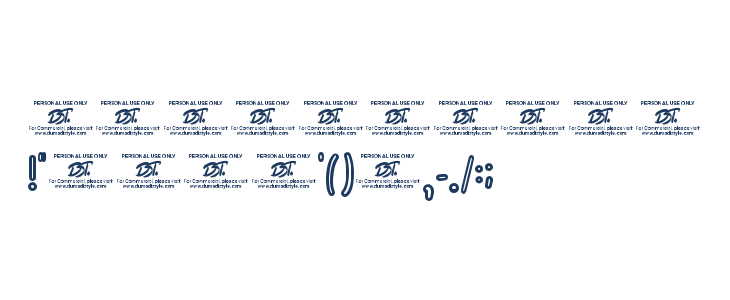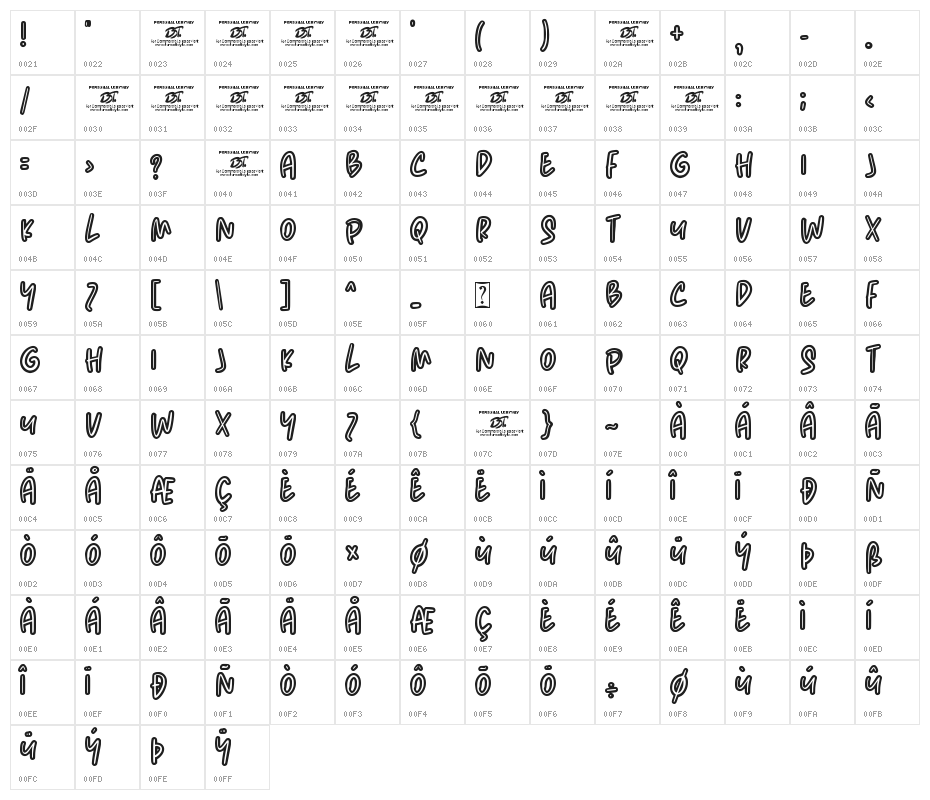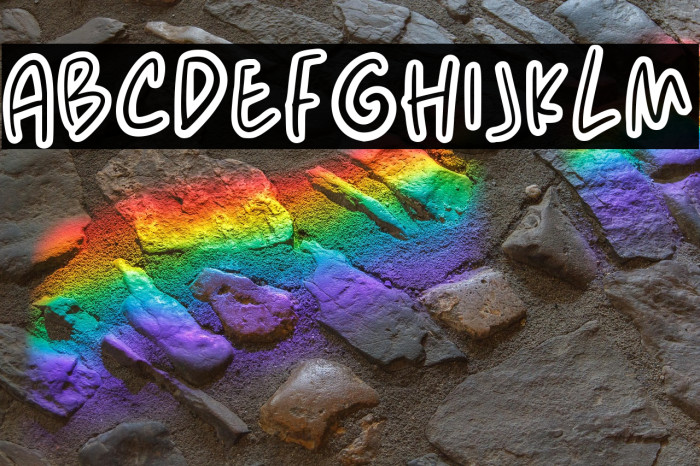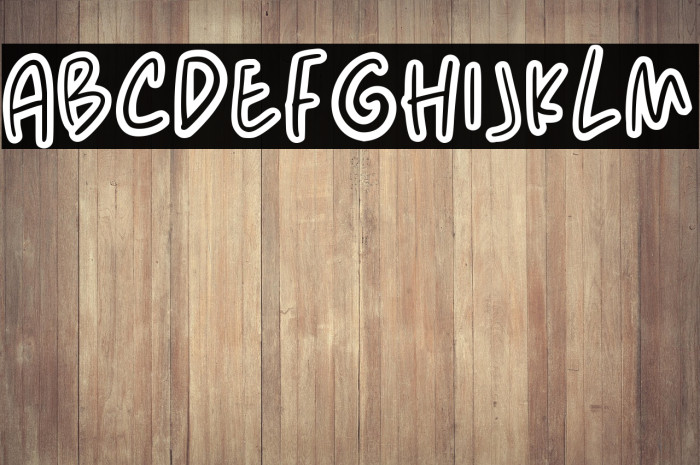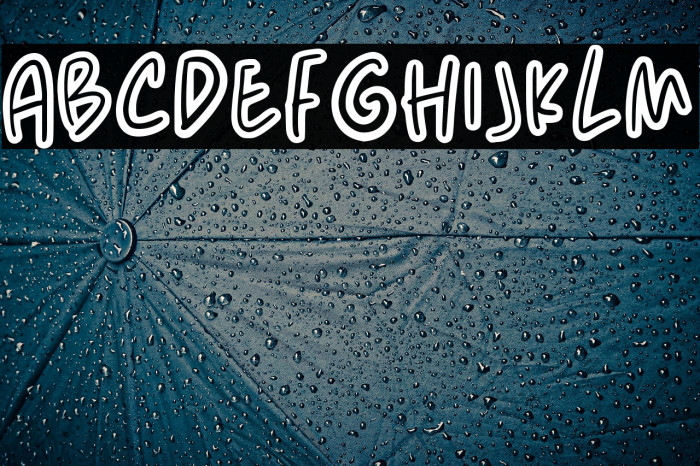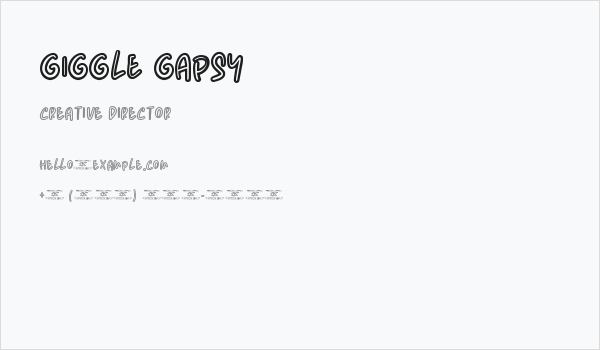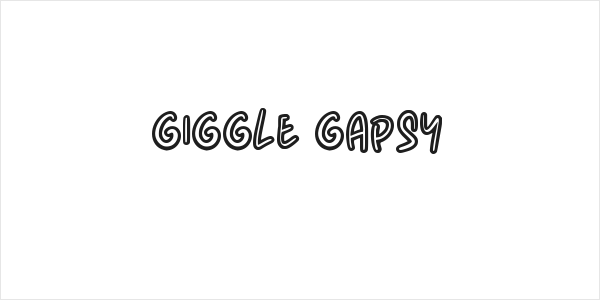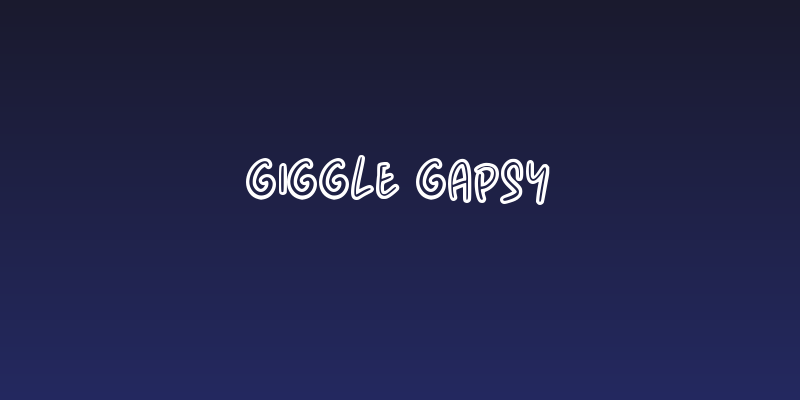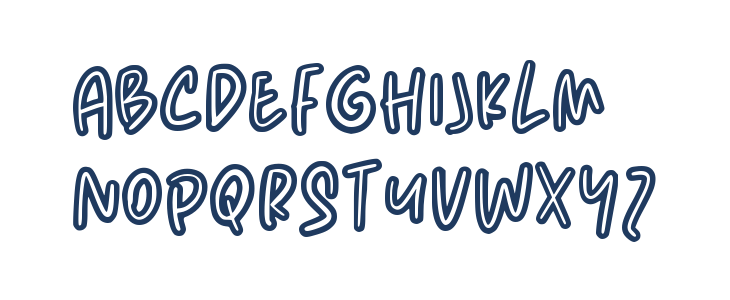
Giggle Gapsy Font
Giggle Gapsy Description
This playful and whimsical font features bold, rounded letters with a hand-drawn appearance. Each character is outlined, giving it a cartoon-like quality that adds a sense of fun and creativity. The uppercase and lowercase letters maintain a consistent style, with slightly exaggerated curves and a casual, informal feel. The numbers and special characters follow the same design principles, ensuring a cohesive look across all elements. This font's unique style makes it ideal for projects that require a touch of humor and lightheartedness.
| Overall Style | Whimsical, Playful, Cartoon-like |
| Proposed Projects | Ideal for children's books, comic strips, playful branding, party invitations, and creative posters. |